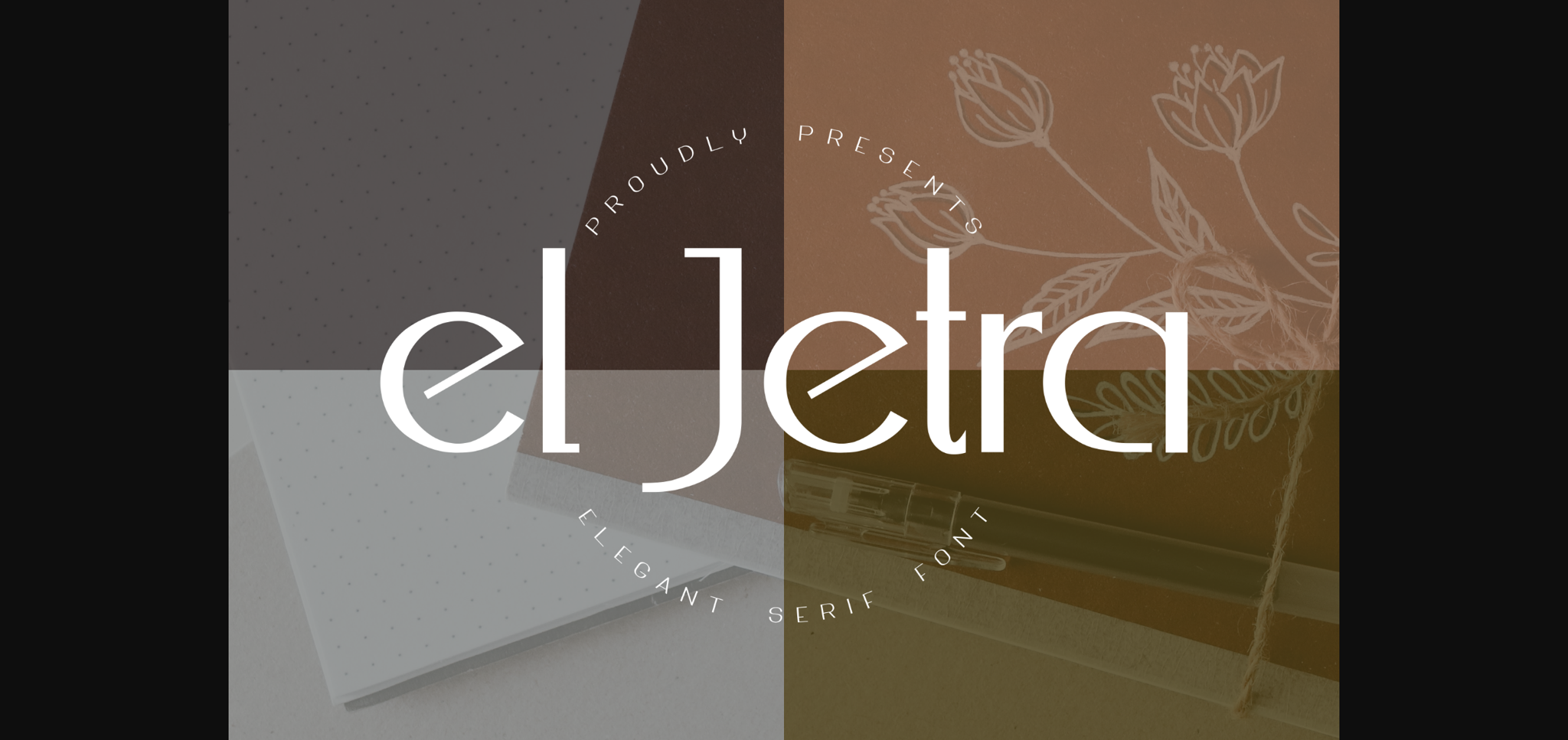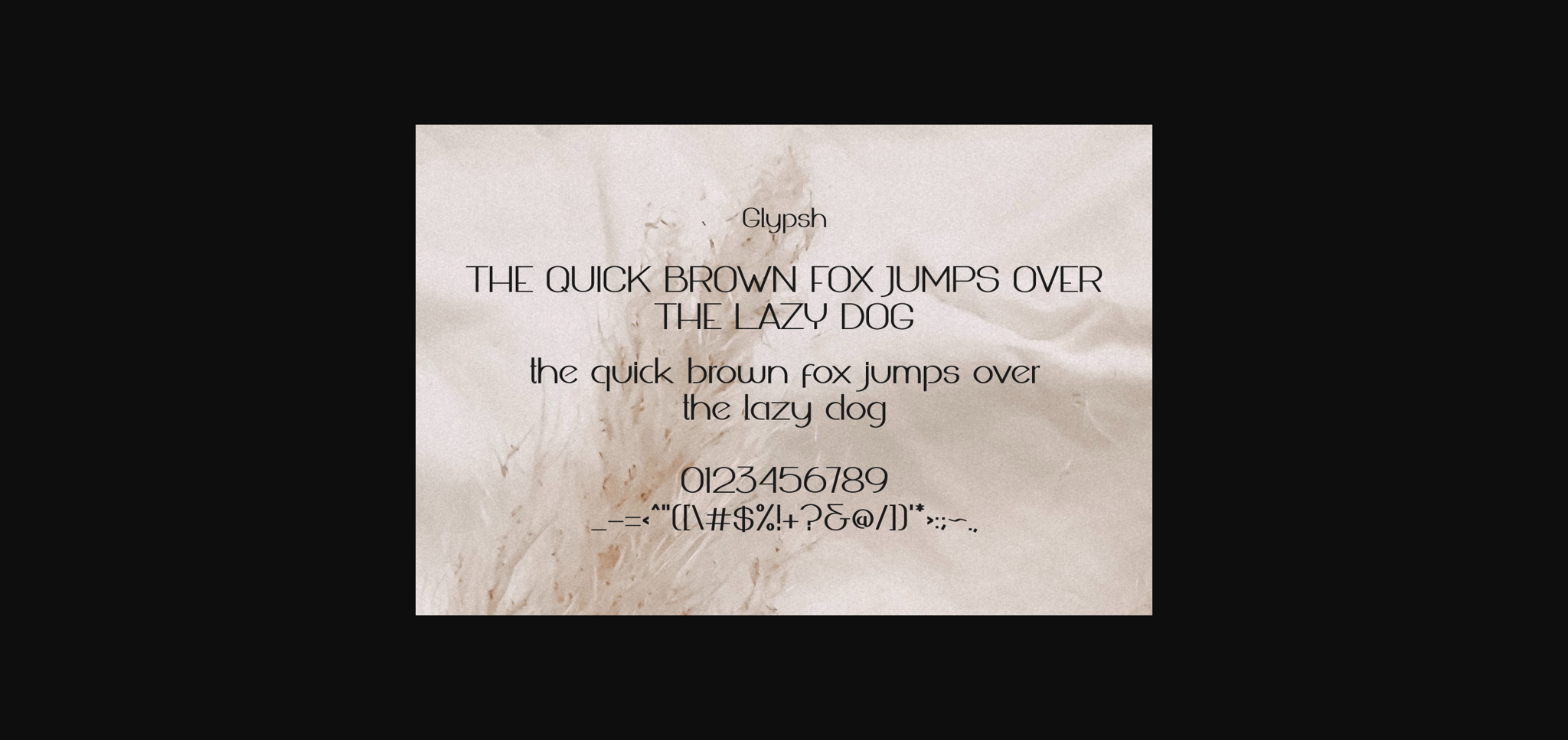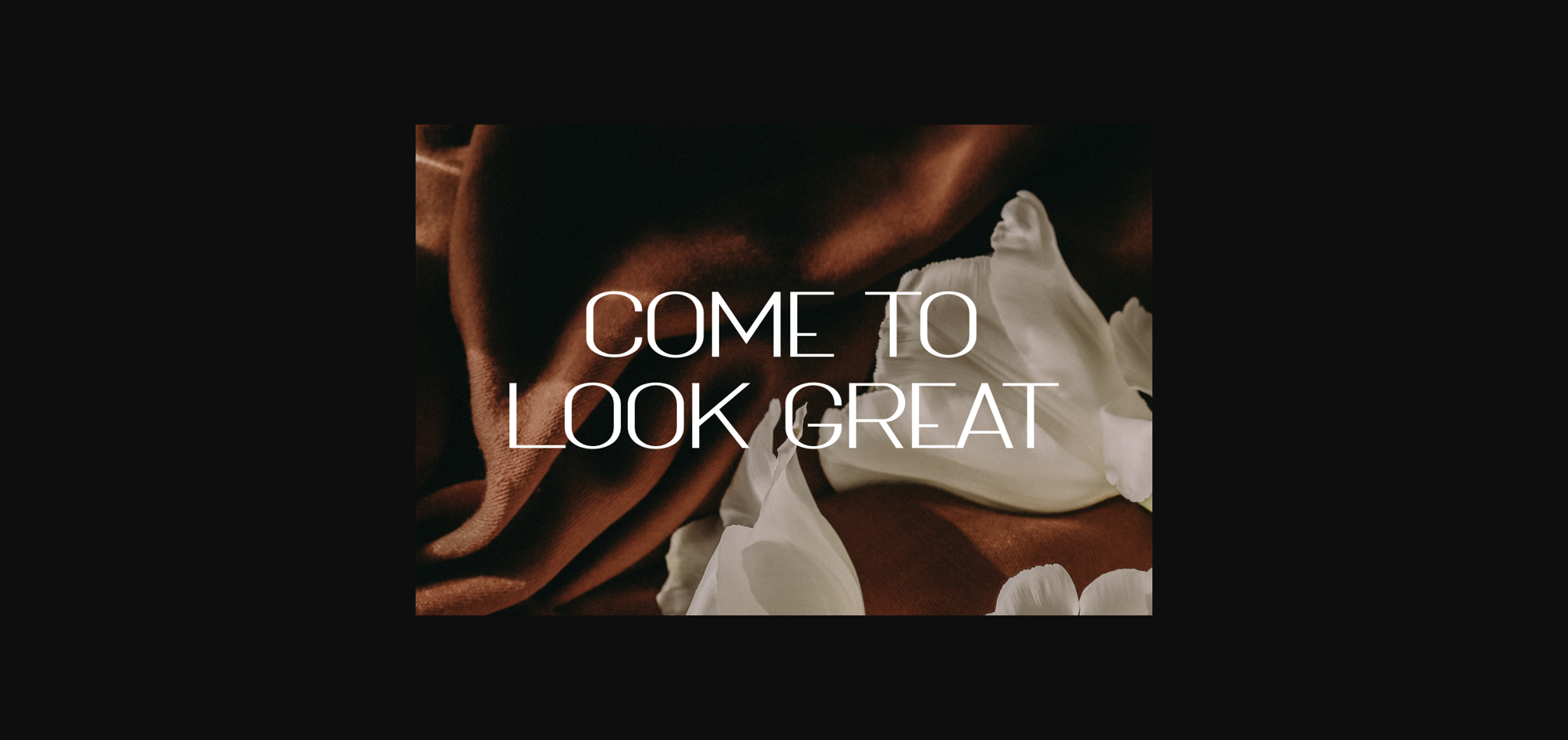
About El Jetra Font
El Jetra is a stylish and elegant sans serif font, created with mathematical formulas in order to achieve a sleek look. This font can be used for logos, corporate identity brands, entertainment, fashion, magazines, and broadcasts, or anything that requires a professional look.